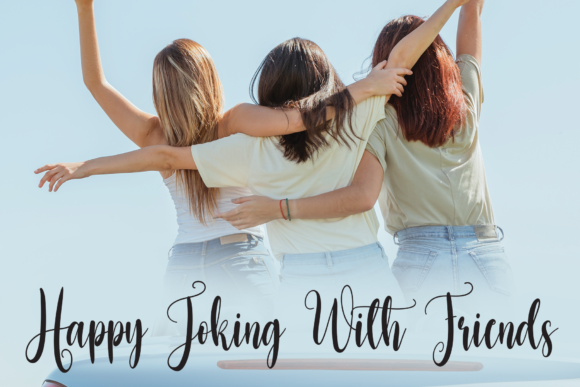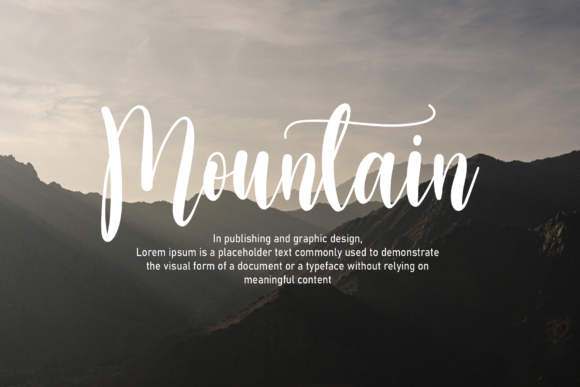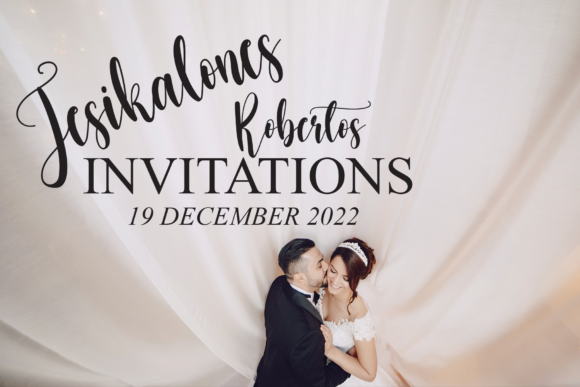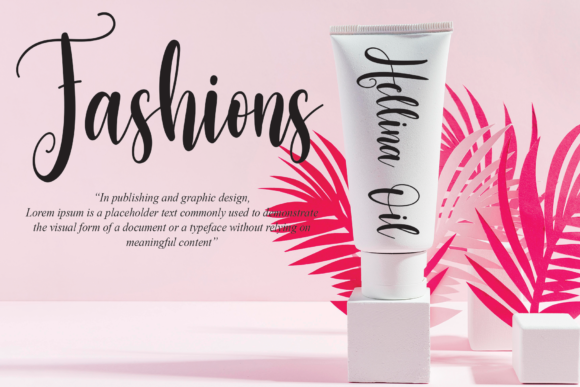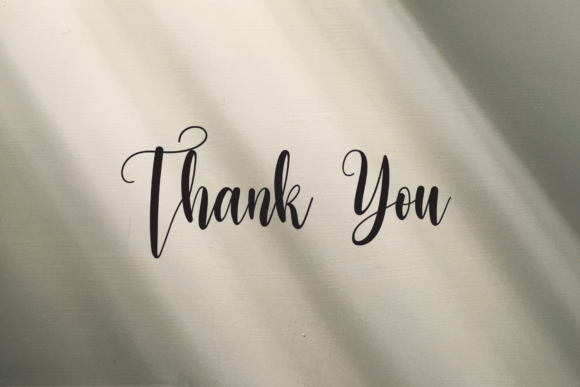
Introduction to Butter and Coffee Font
Butter and Coffee is an exquisite and charming handwritten font.
It is perfect for wall displays, wedding invitations, social media post logos, advertisements, product packaging, product designs, labels, photography, watermarks, invitations, stationery, and any project that requires a handwritten taste .